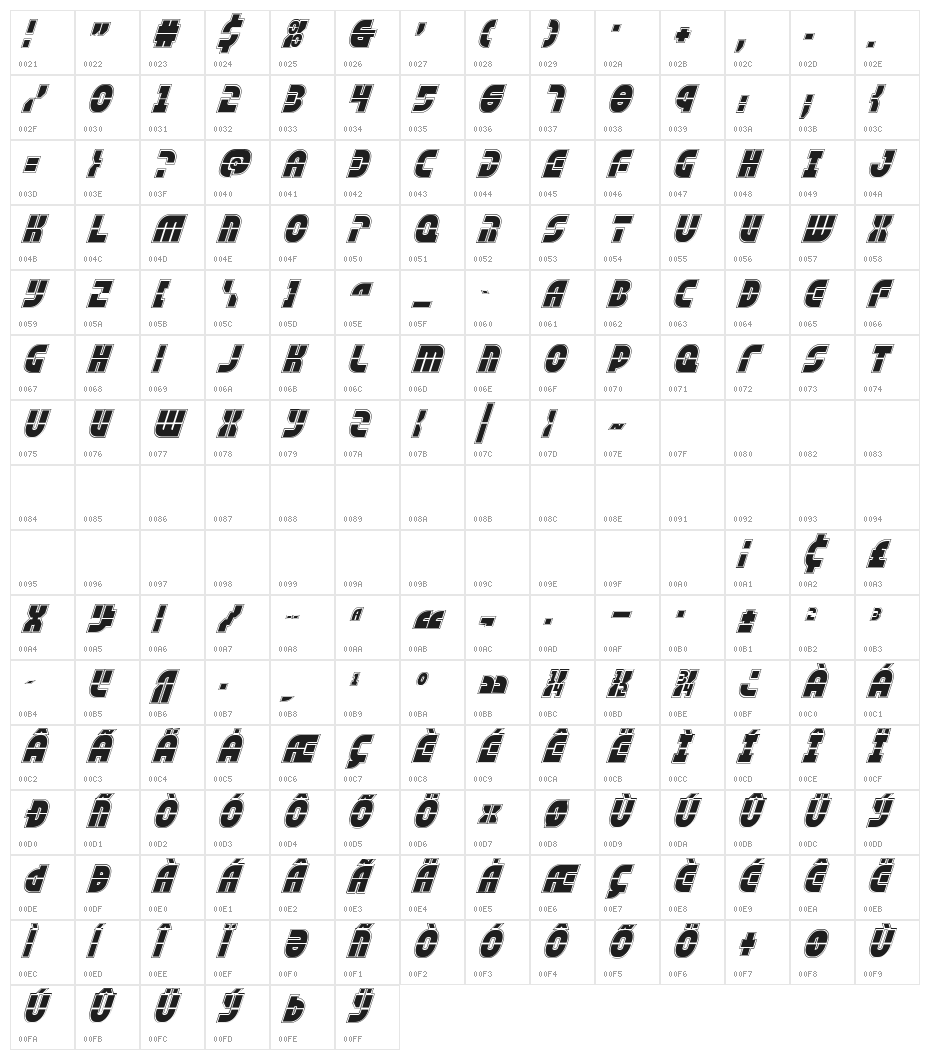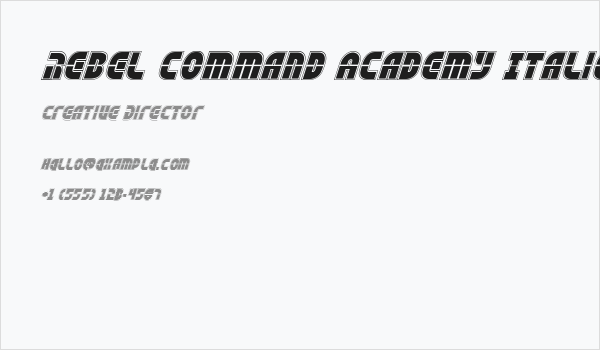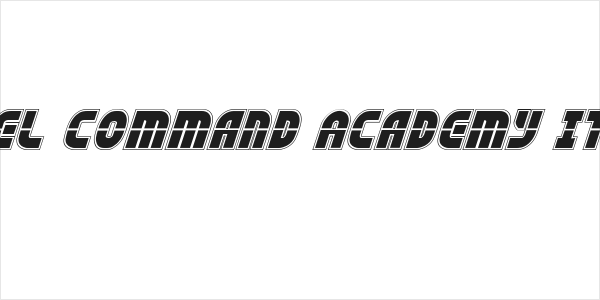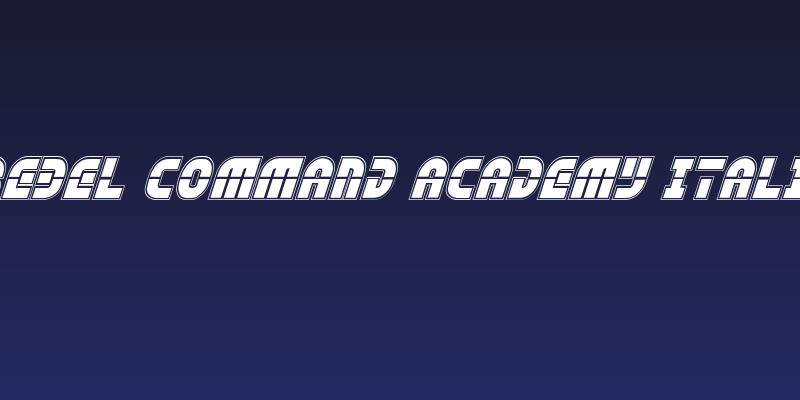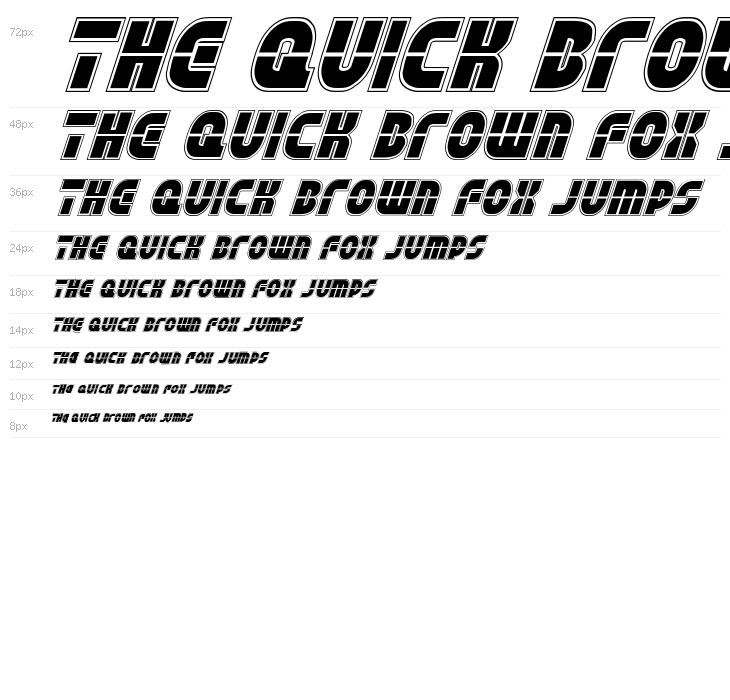
Rebel Command Academy Italic Font
Rebel Command Academy Italic Description
This font features a bold, futuristic design with a strong geometric influence. The characters are italicized, giving a sense of motion and dynamism. The letters are constructed with thick strokes and sharp angles, creating a sense of strength and modernity. The font includes both uppercase and lowercase letters, numbers, and a variety of special characters. The overall appearance is sleek and powerful, making it suitable for projects that require a bold statement.
| Proposed Projects | Ideal for sci-fi themed projects, video game titles, movie posters, and branding that requires a modern and dynamic look. |